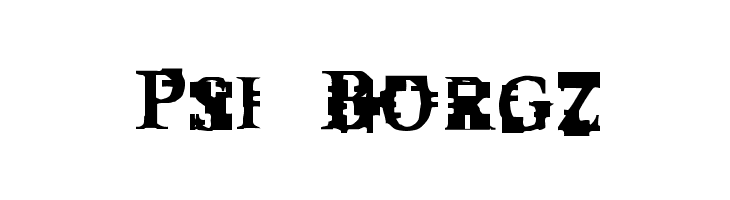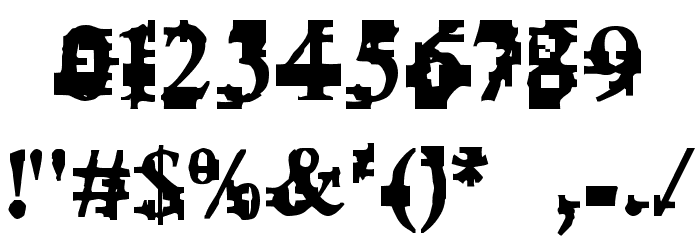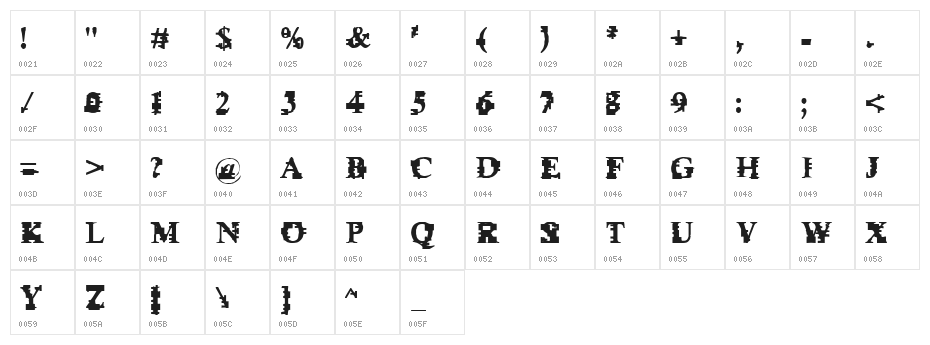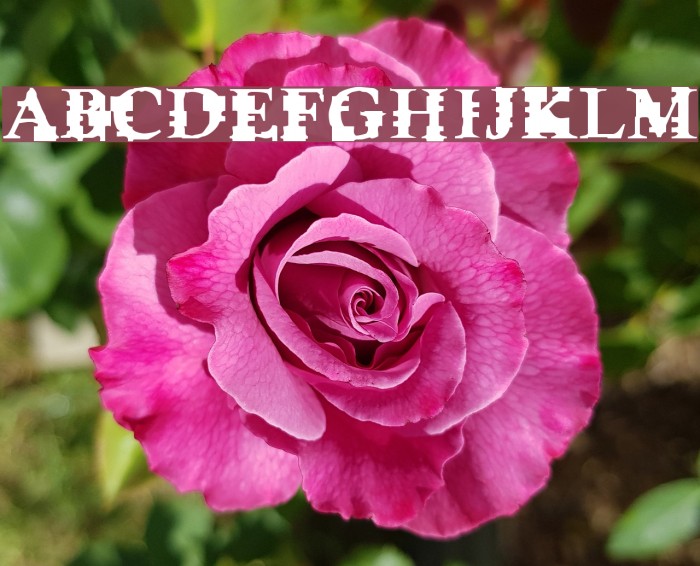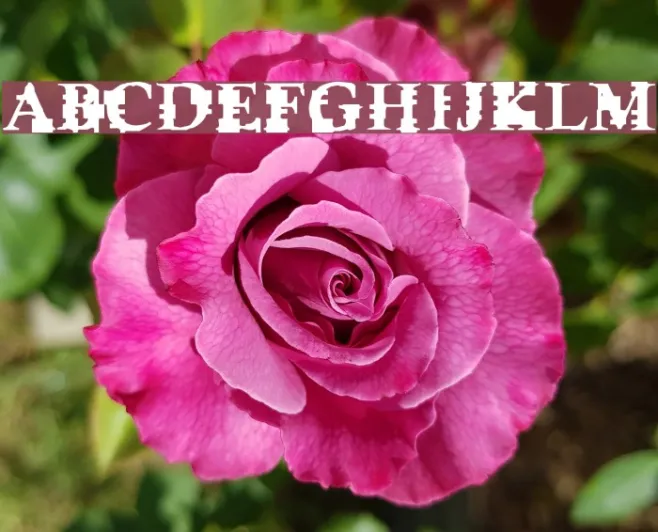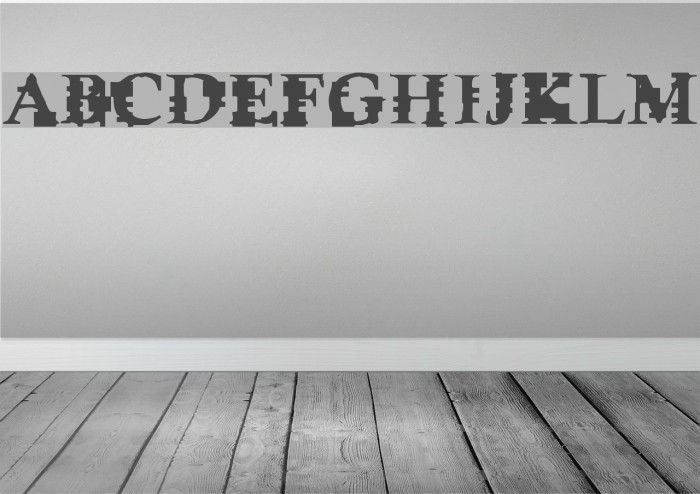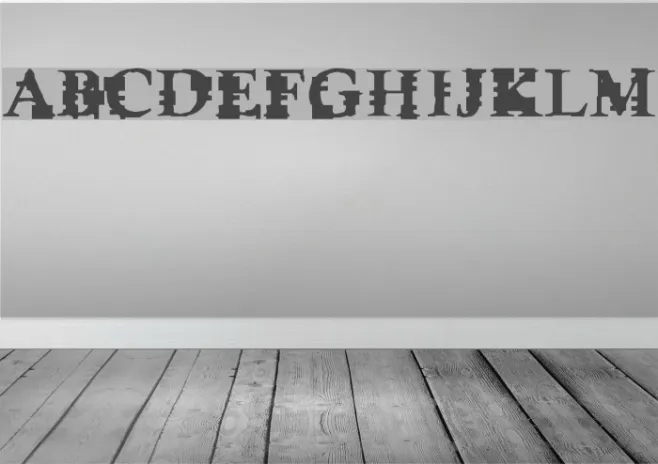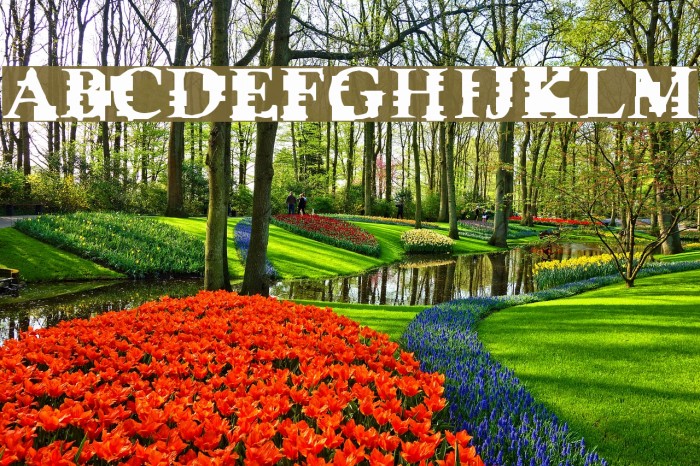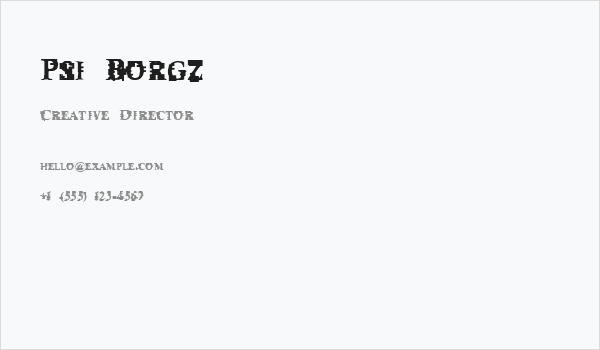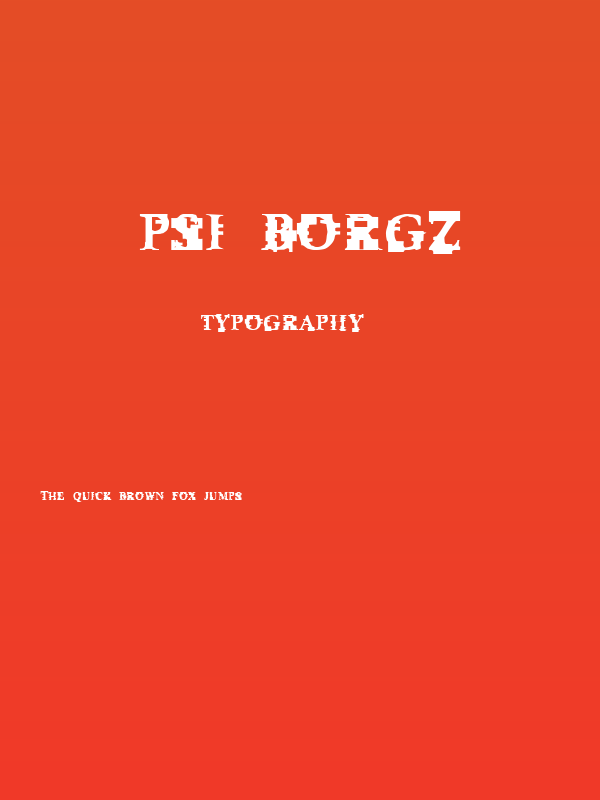
Psi Borgz Font
Psi Borgz Description
This font presents a bold and futuristic design with a distressed, glitch-like appearance. The characters are heavily stylized, featuring irregular cuts and jagged edges that give them a digital, cyberpunk aesthetic. The uppercase and lowercase letters maintain a consistent height, contributing to a uniform look across the text. The numbers and special characters follow the same design principles, ensuring cohesion throughout. This font's unique style makes it stand out, ideal for projects that require a modern and edgy feel. The overall design is both eye-catching and memorable, making it suitable for creative and unconventional uses.
| Overall Style | Futuristic, Cyberpunk |
| Proposed Projects | Ideal for sci-fi themed designs, video game titles, movie posters, and digital art projects. |